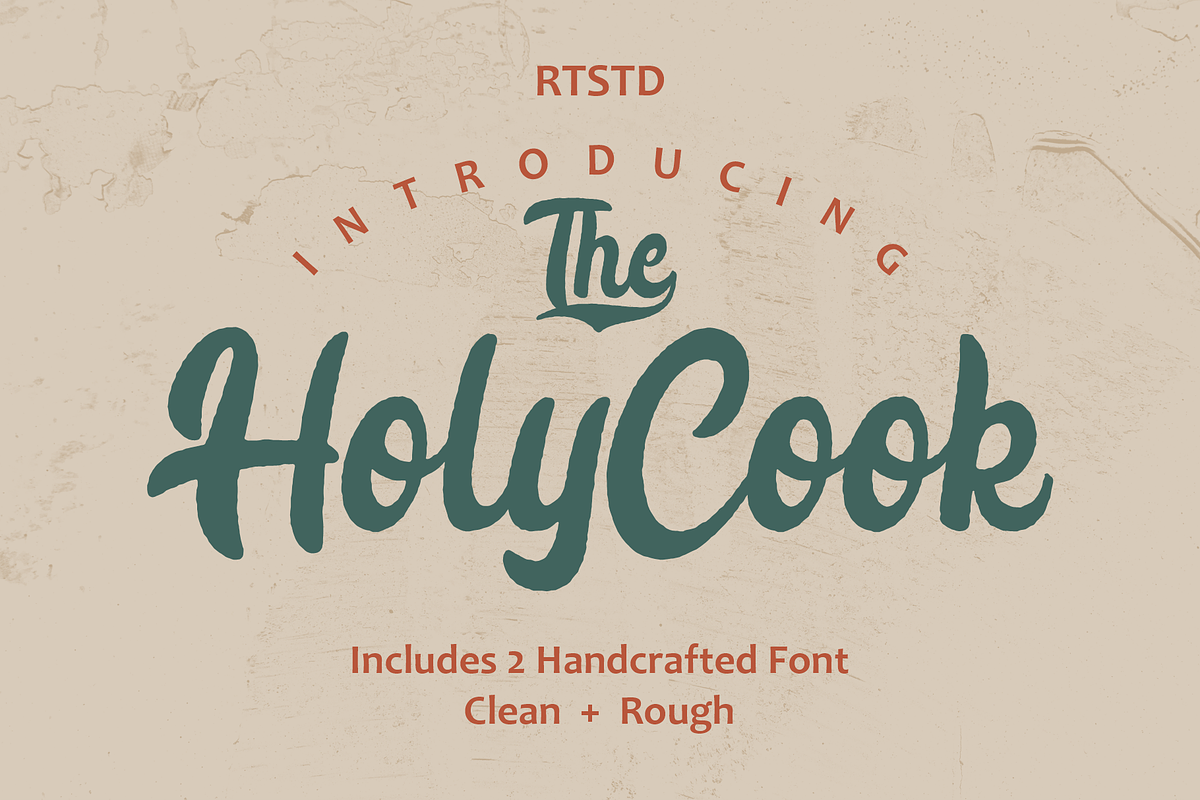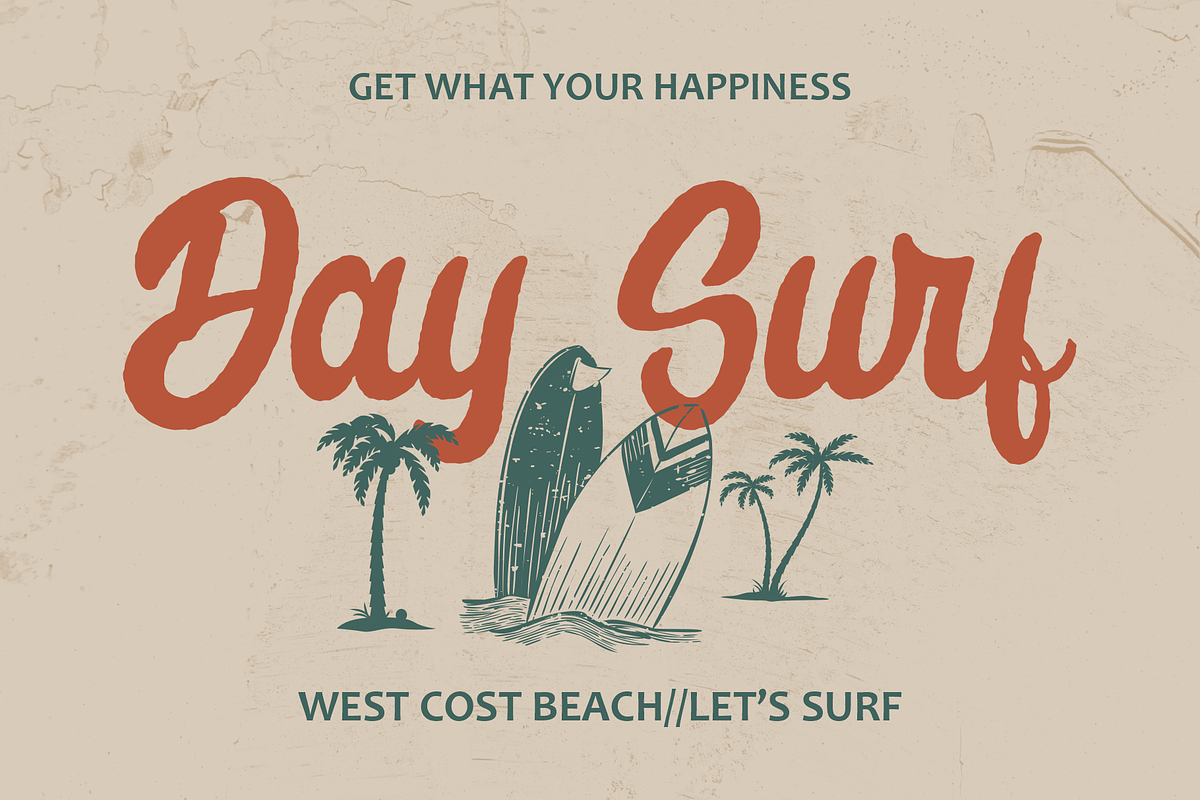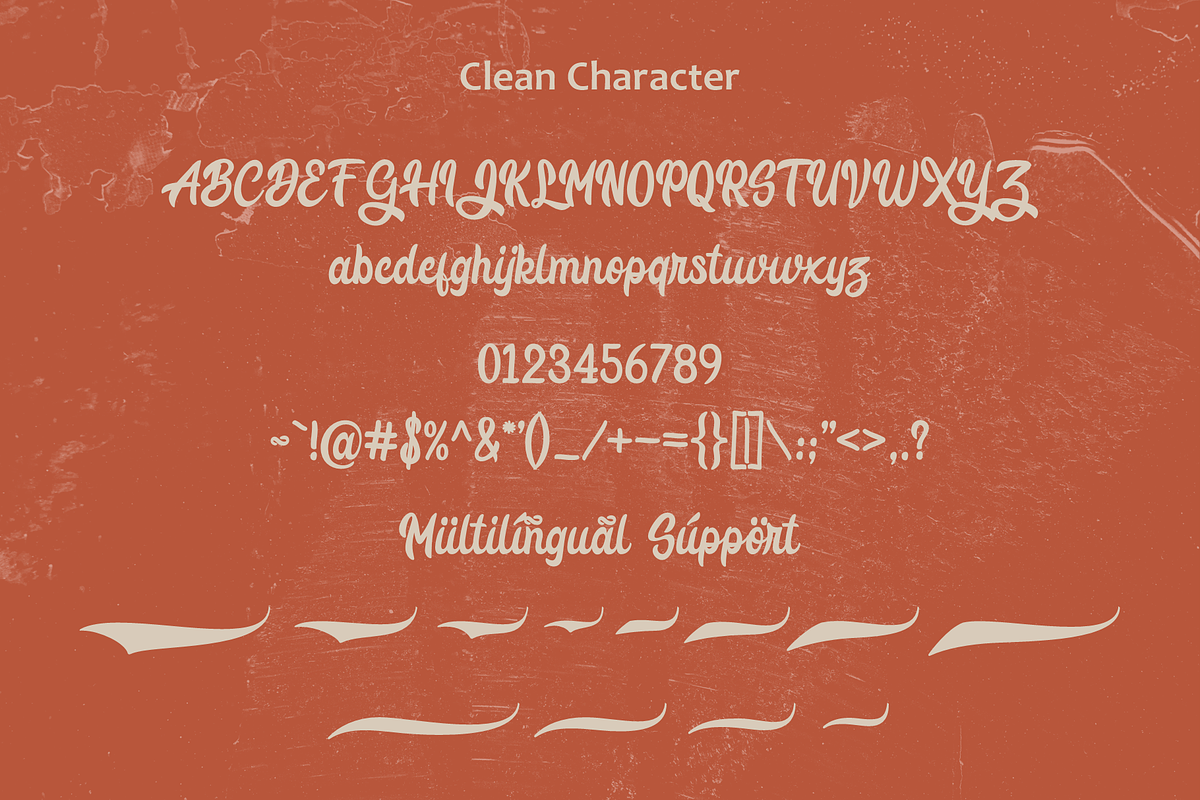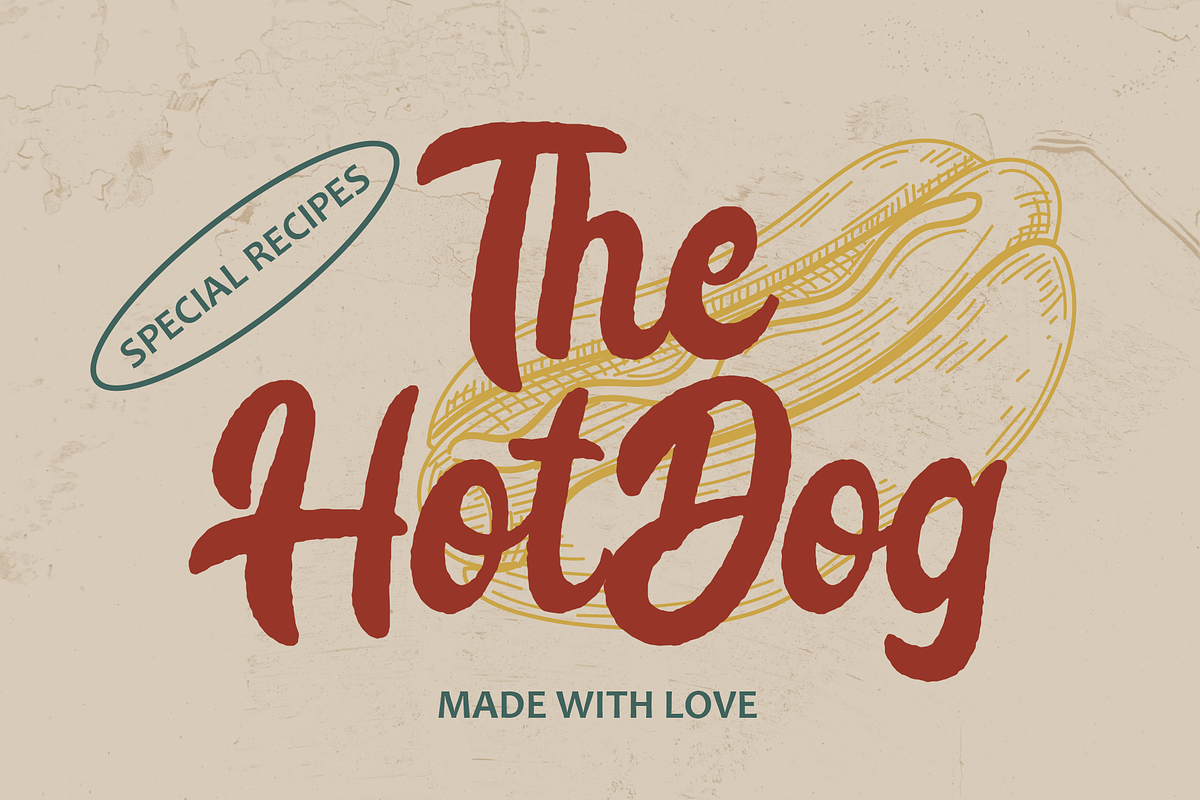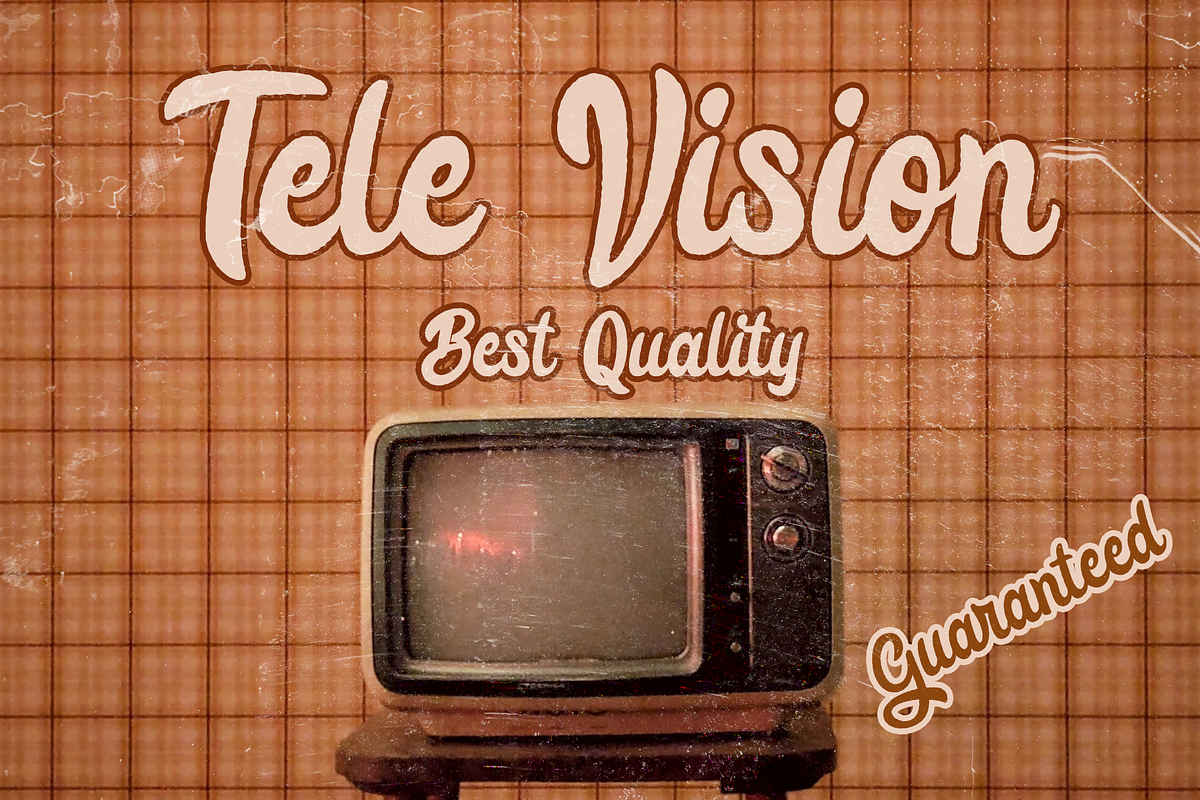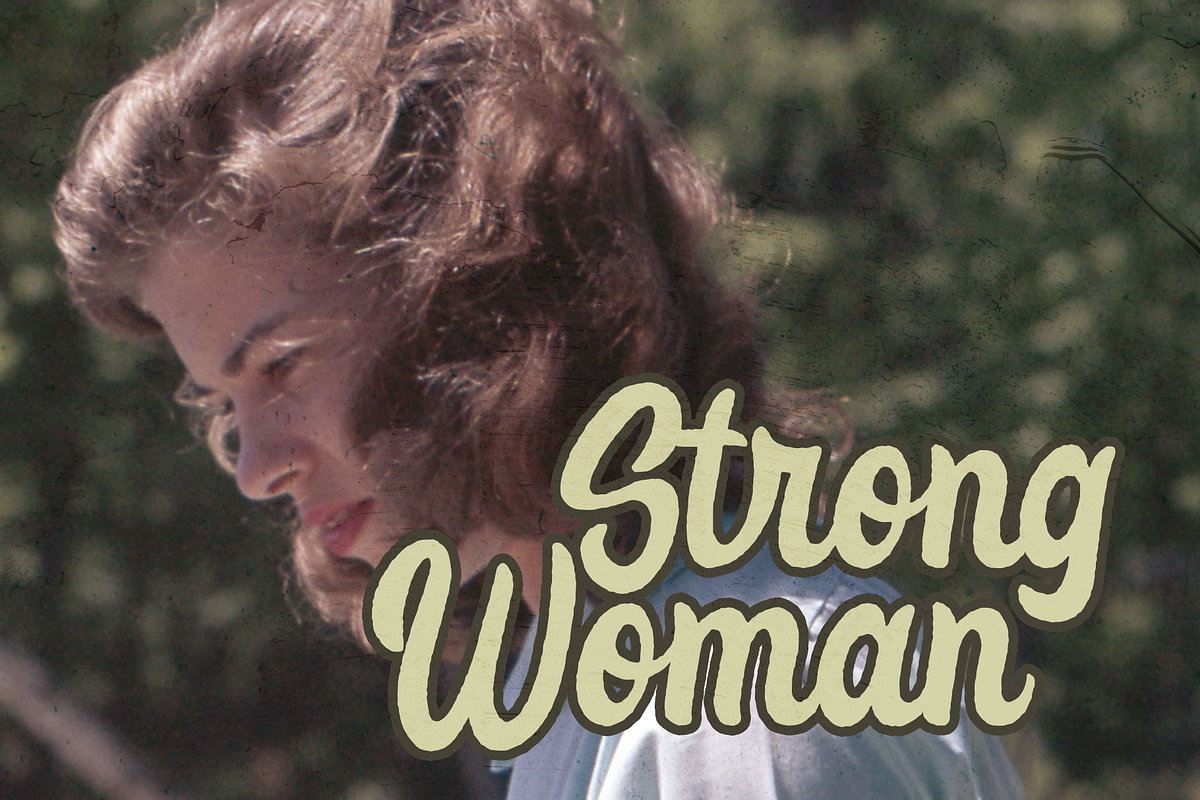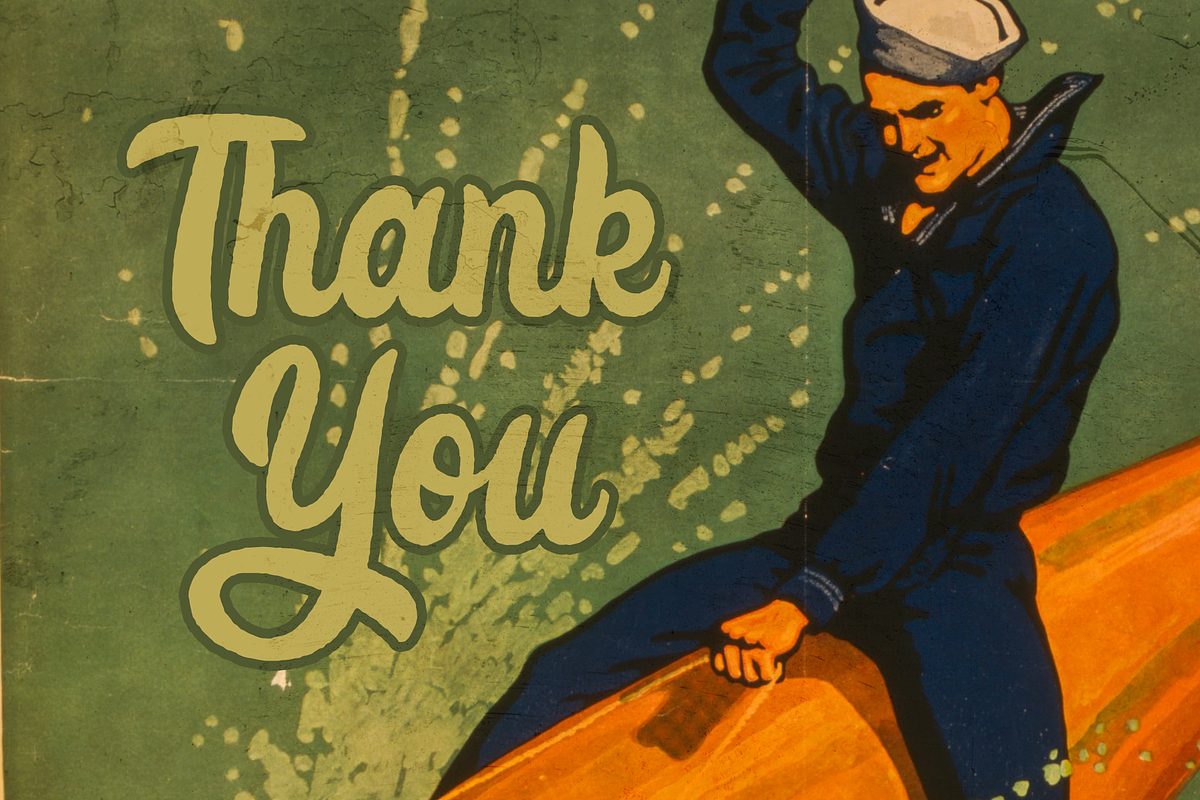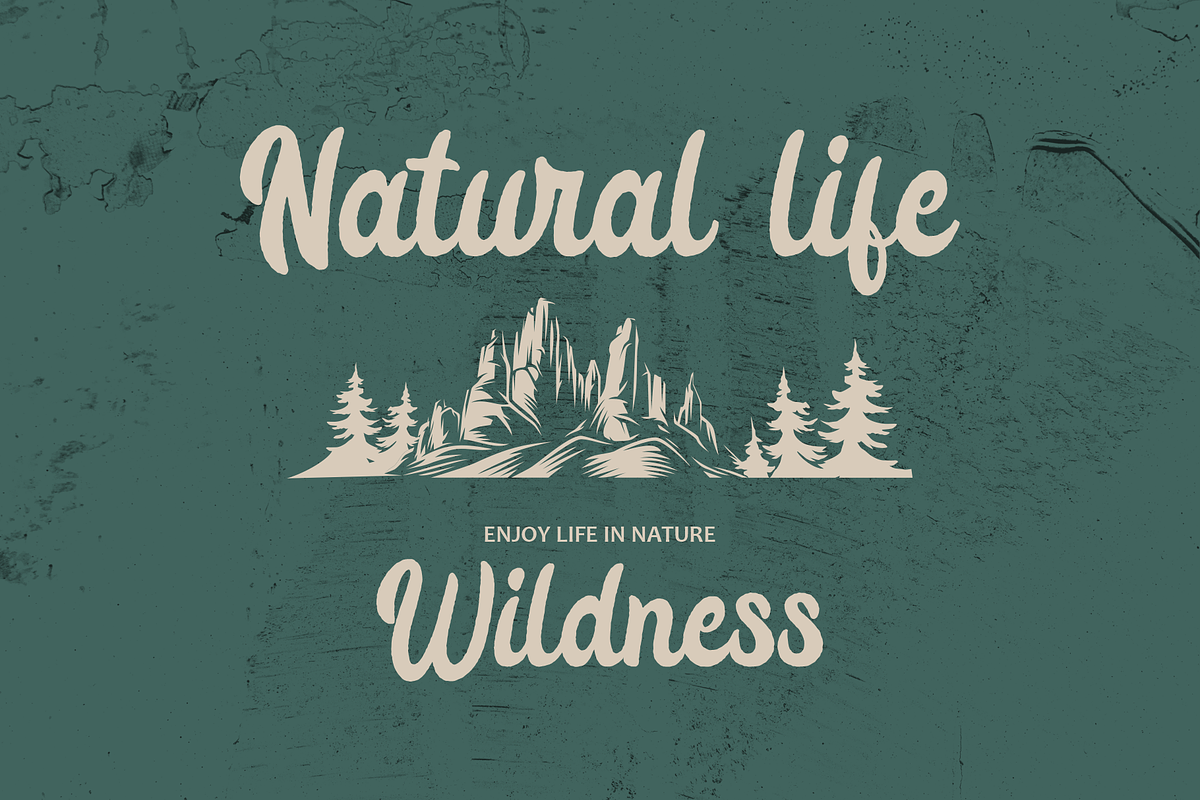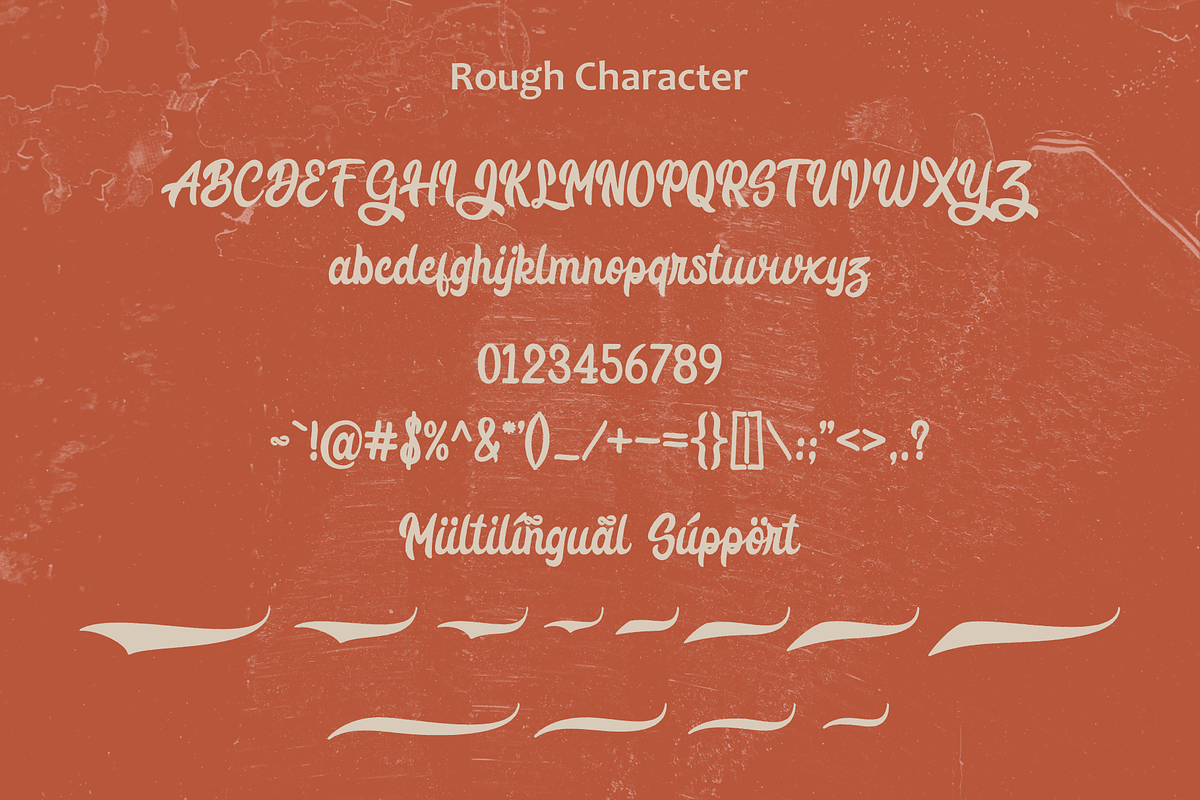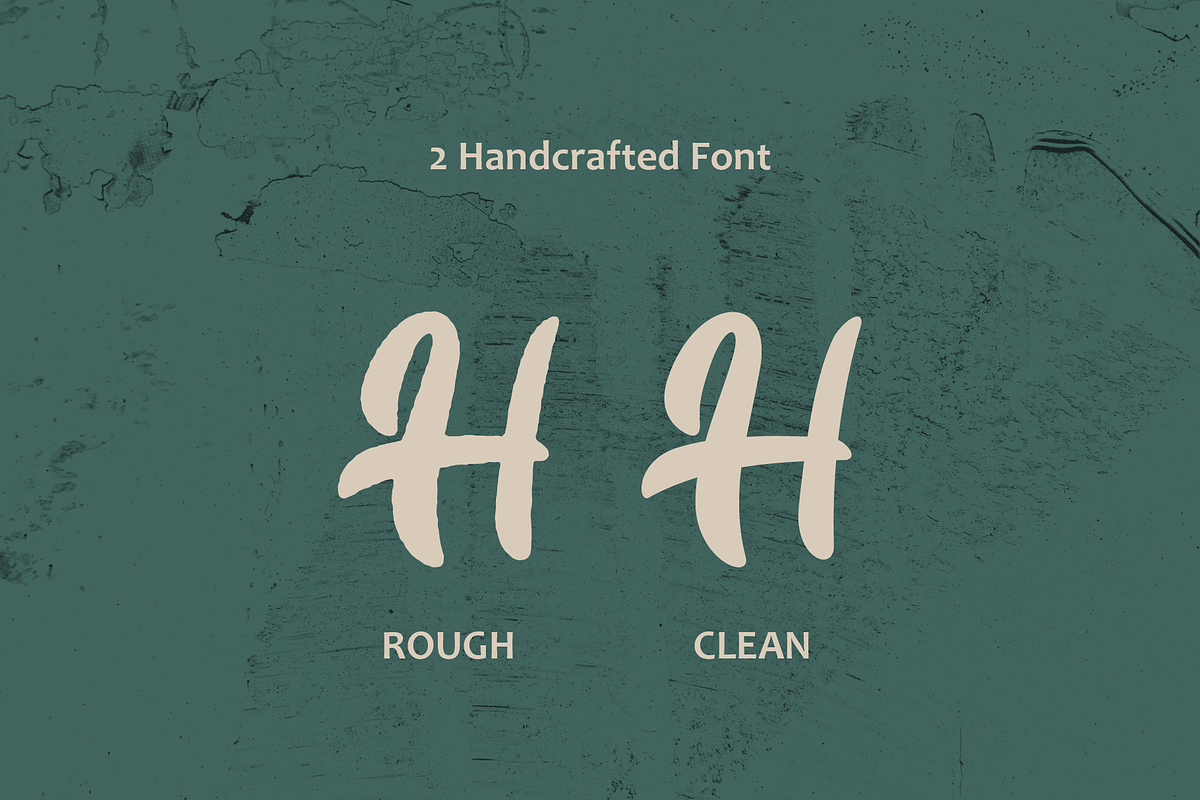
Holy Cook | 2 Charming Style
Introducing this cool font that is Holy Cook which is a Bold script font with a charming old style touch. There are 2 styles of this font, clean and rough. This also looks interesting because I added some alternative features that you can use, this font is suitable for those of you who want a design that displays an old-school side but is still relevant for a charming modern look. Make this font as one of the font collections on your computer